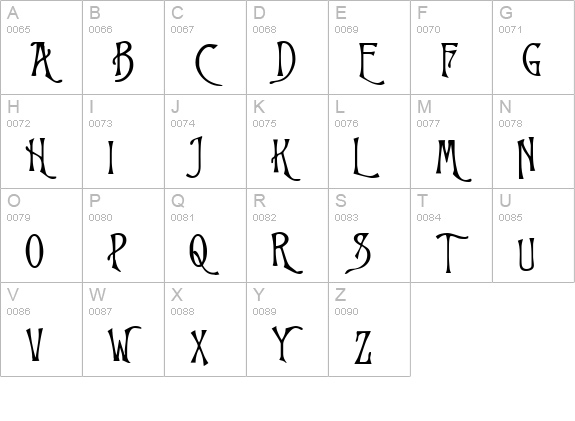
Disney Nightmare Before Christmas Font Details
The Disney Nightmare Before Christmas font is a whimsical and spooky typeface inspired by the beloved Tim Burton film. This font captures the essence of Halloween and Christmas all in one, with its unique and playful design. Perfect for adding a touch of magic to your designs, whether it's for posters, invitations, or social media graphics. And the best part is, this font is available for free download at FontsMarket.com! So you can easily bring a touch of Disney magic into your projects without breaking the bank. Get your hands on the Disney Nightmare Before Christmas font today and let your creativity shine!